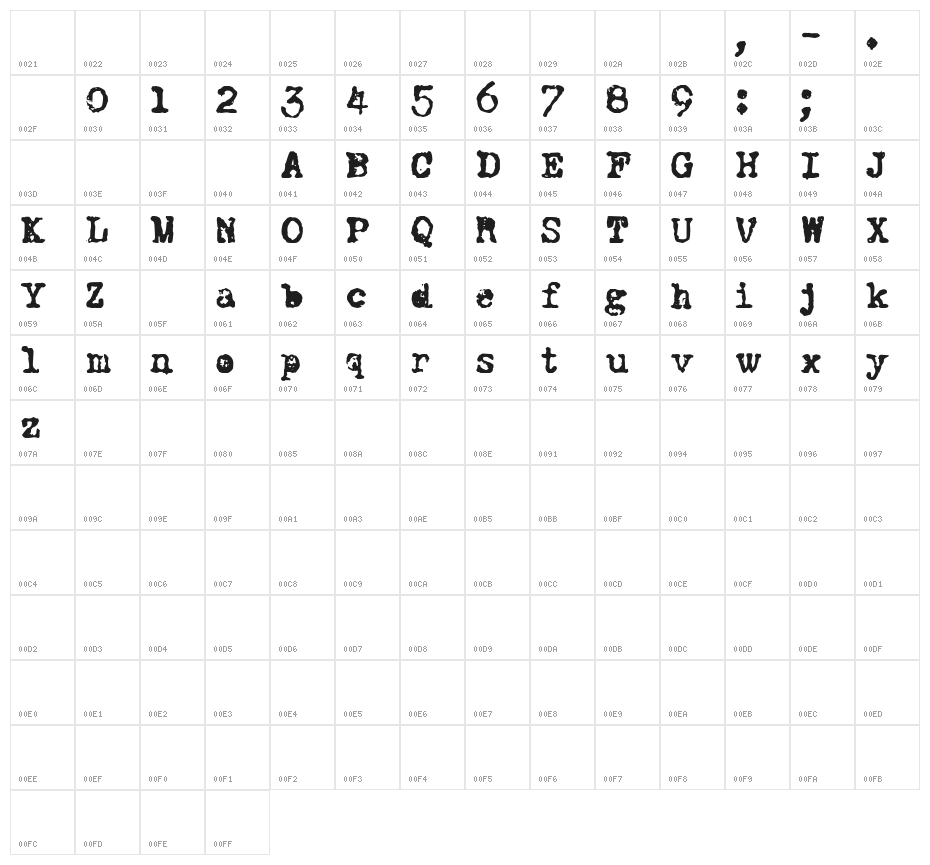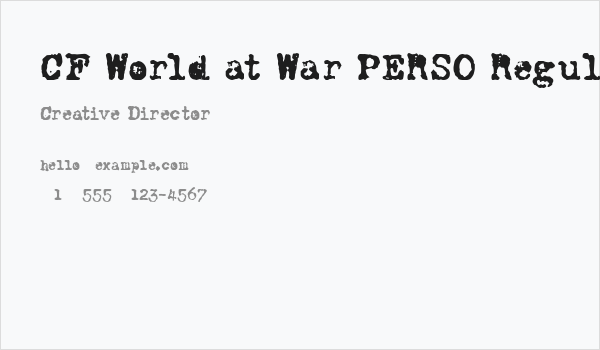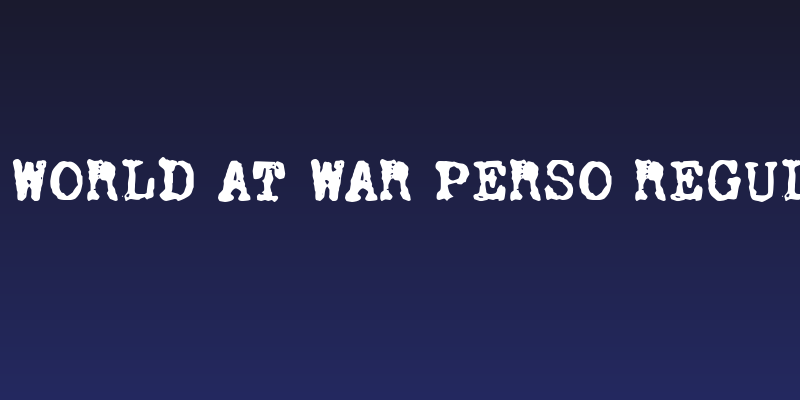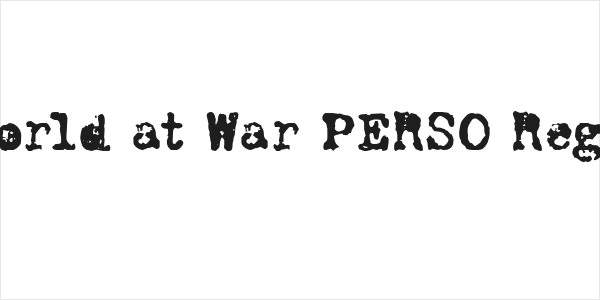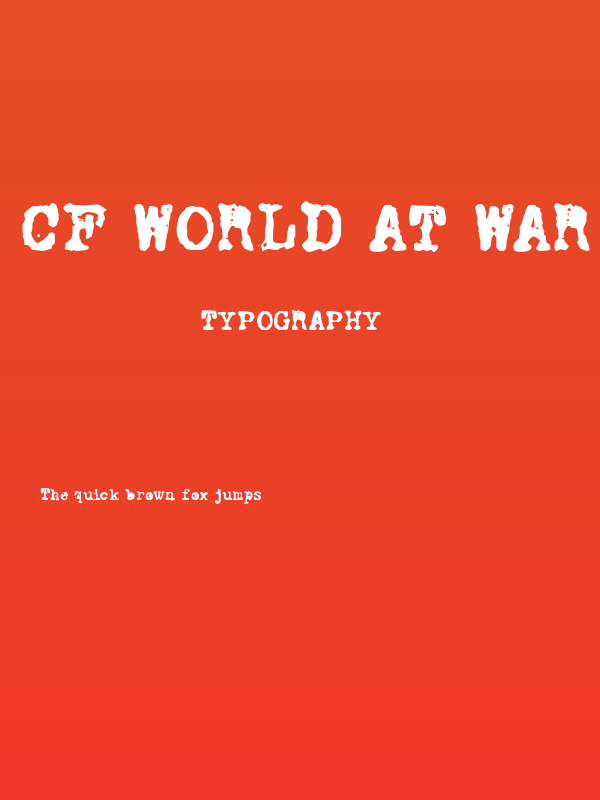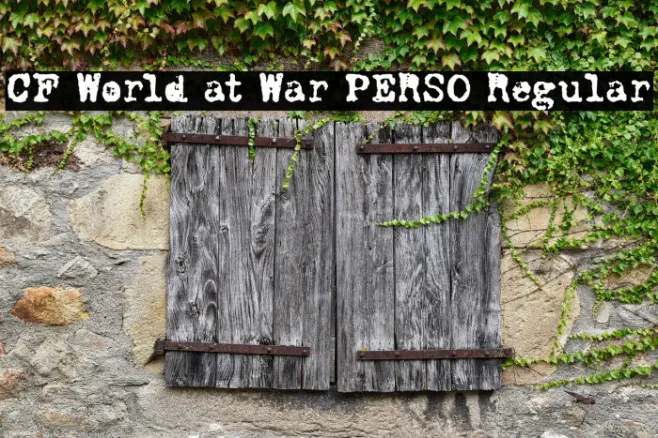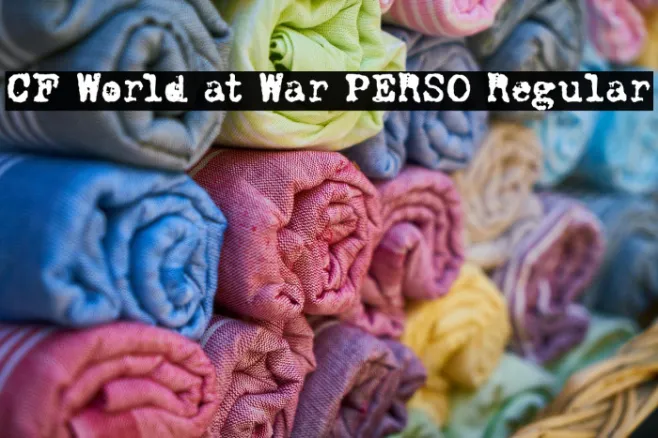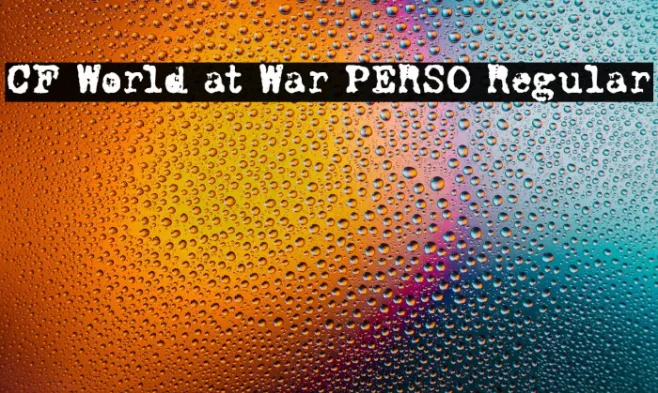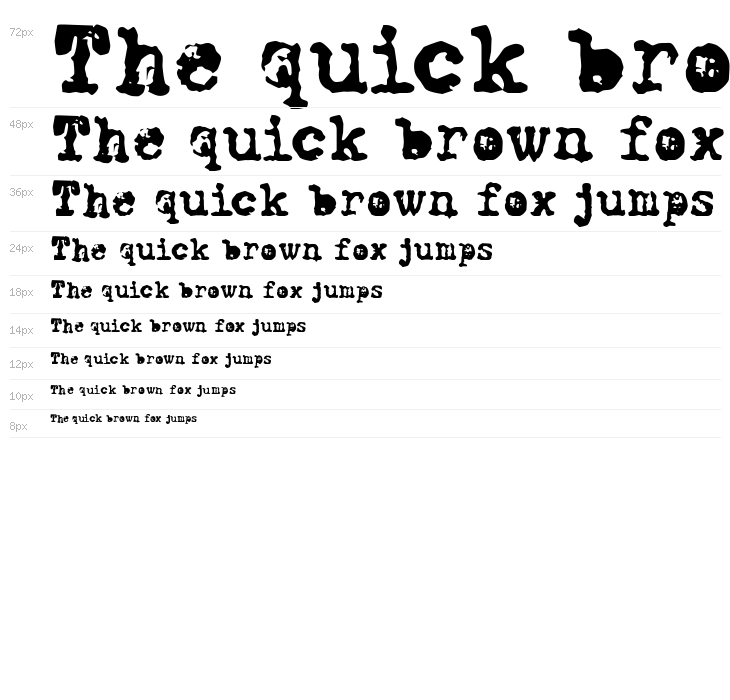
CF World at War PERSO Regular Font
CF World at War PERSO Regular Description
This font features a rugged, distressed appearance, reminiscent of vintage typewriter or military stencil styles. The characters are bold and heavily textured, with irregular edges that give a worn, weathered look. This design evokes a sense of history and nostalgia, making it ideal for projects that require a touch of authenticity or a retro vibe. The uppercase and lowercase letters maintain a consistent style, with numerals and special characters following suit. The overall aesthetic is both bold and impactful, suitable for creating a strong visual presence.
| Proposed Projects | Ideal for historical-themed designs, posters, military memorabilia, or any project needing a vintage, rugged look. |